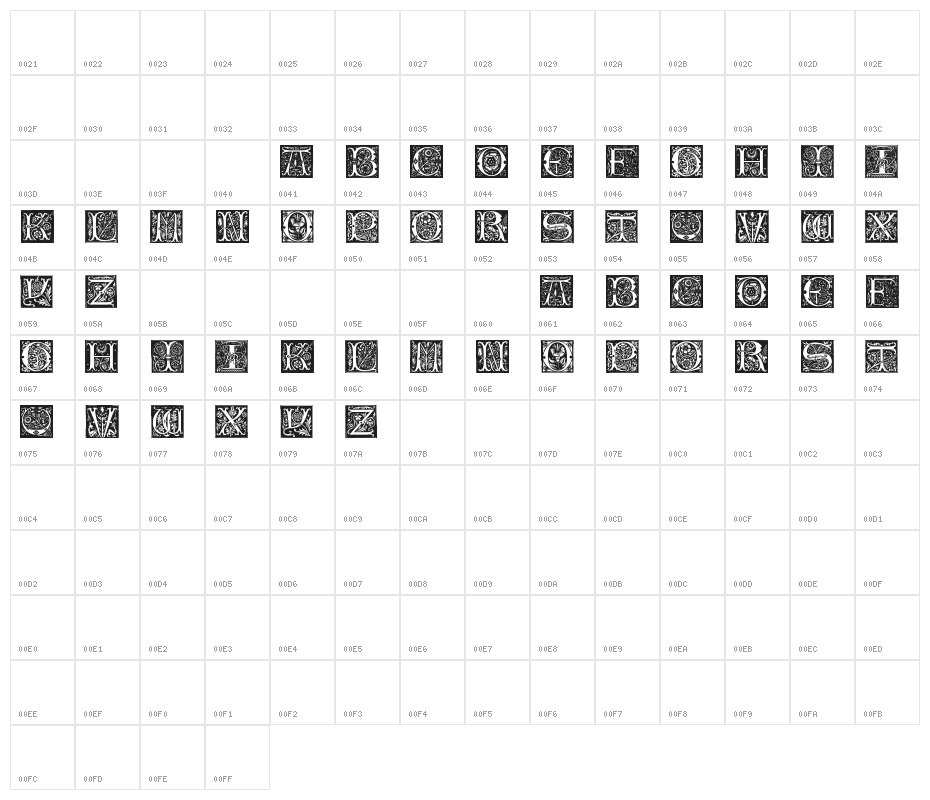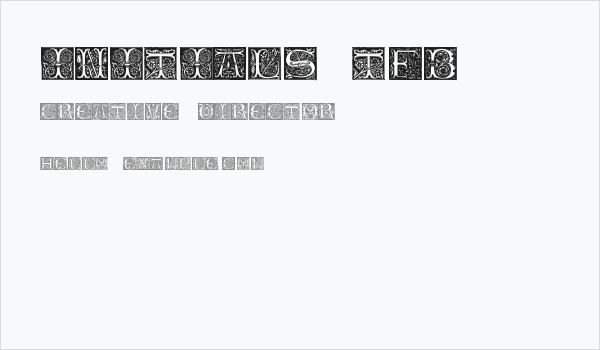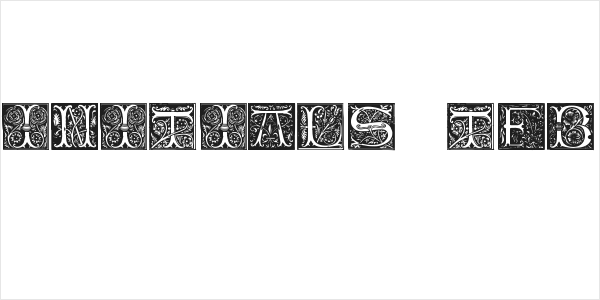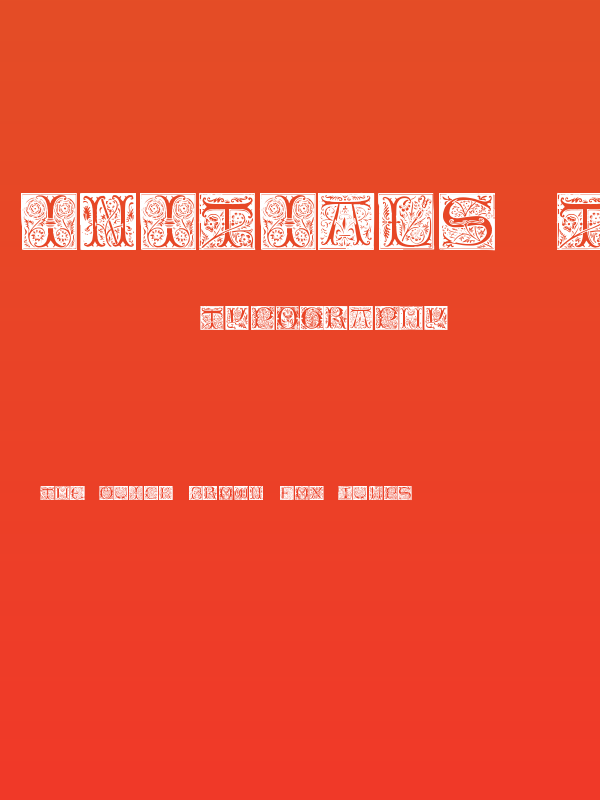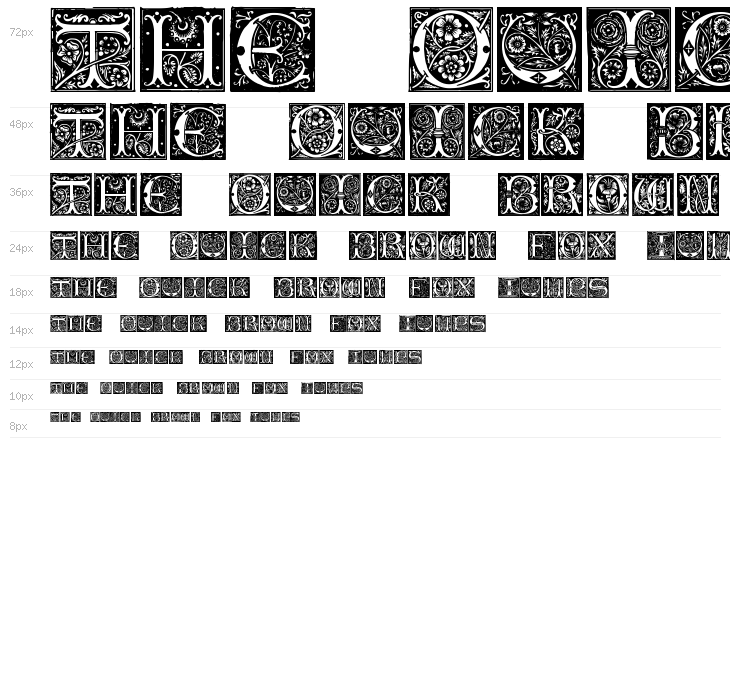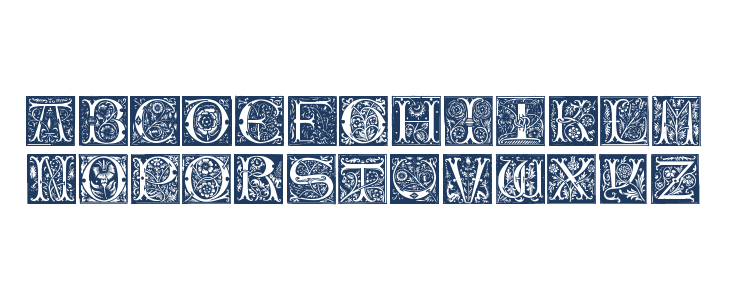
Initials TFB Font
Initials TFB Description
This font features an ornate and decorative style, with each letter encapsulated in a square frame. The letters are intricately designed with floral and abstract patterns, giving them a vintage and artistic appearance. The high level of detail in each character makes it suitable for decorative purposes. The font is characterized by its bold and elaborate design, which stands out prominently. The contrast between the black background and the white detailing enhances the visual impact, making it ideal for projects that require a touch of elegance and sophistication.
| Overall Style | Vintage |
| Use Case | Logos, Headlines, Decorative text |
| Proposed Projects | Ideal for wedding invitations, vintage-themed posters, book covers, and artistic projects that require a decorative touch. |